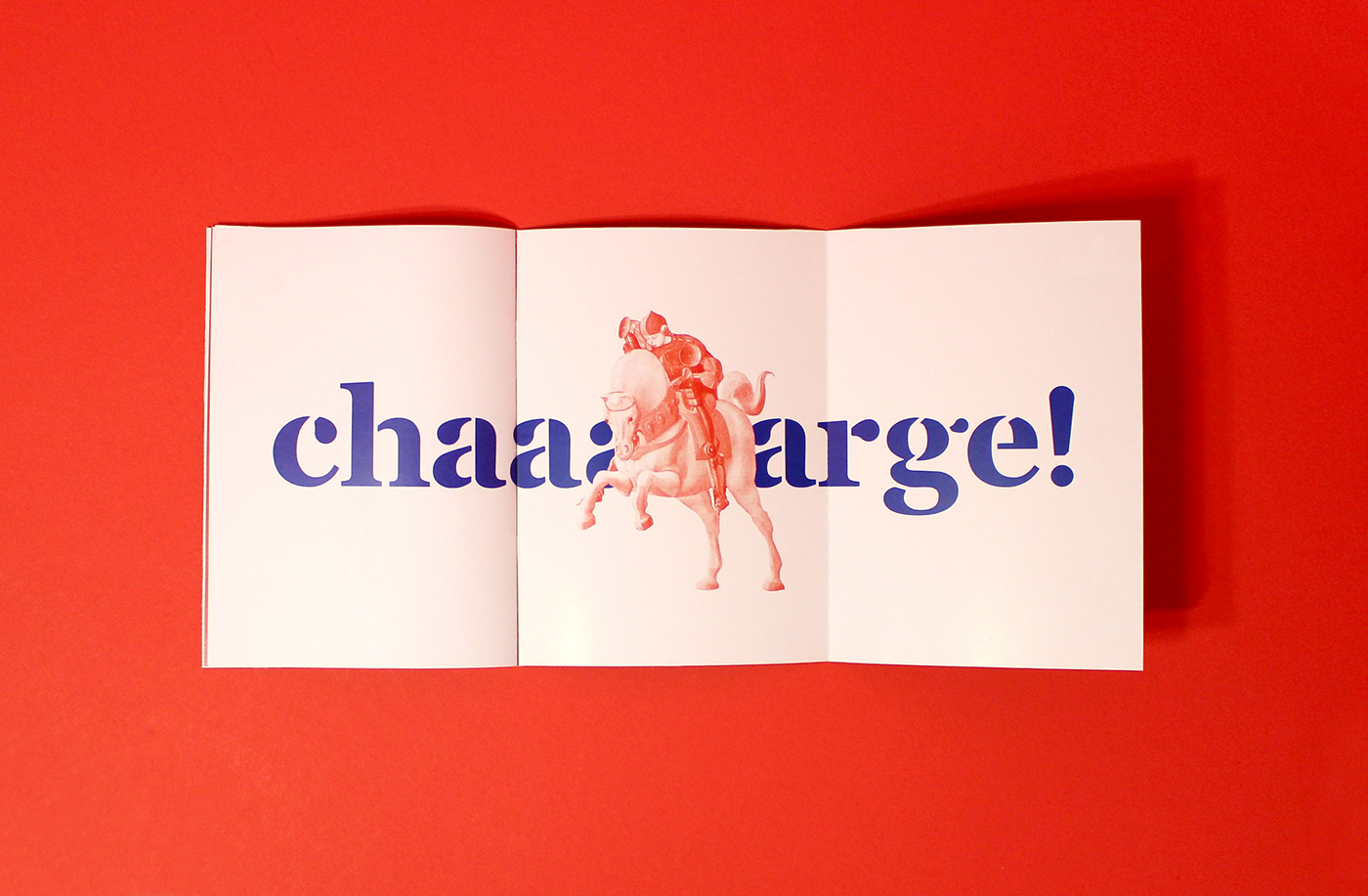
Saint George Free Typeface
Hi Designer! Introducing SaintGeorge. It is designed and shared by Vedran Vaskovic. SaintGeorge is an experimental typeface. It is based on a widely available Georgia. The intention was to modify an existing typeface and create something new. Because it is an experimental project, it is available only in lowercase characters. The inspiration for the theme comes from the name of the original which morphed to Saint George. Since the stencil shapes got more wild and playful, the tone of the theme had appropriated humour and twisting of the basic christian tale of Saint George.